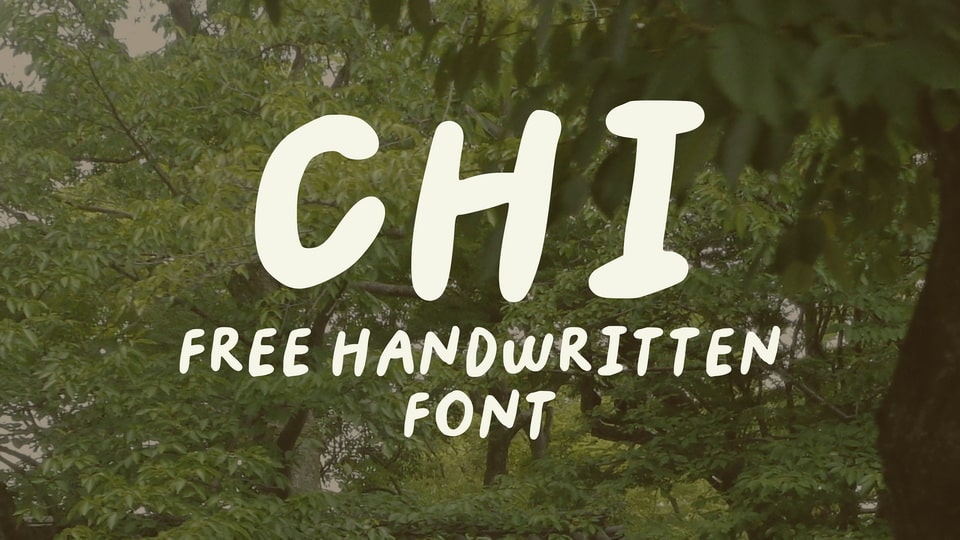
Download Chi font, a handwritten, bubbly typeface that can be utilized in a variety of creative projects. Chi font is great for notes, quotes, crafts and any project that needs a personal touch.
Designer: Chloe Chan